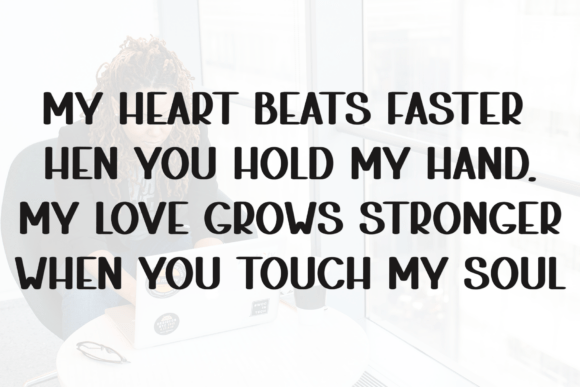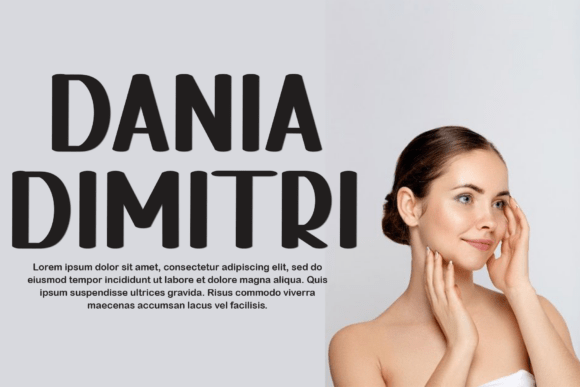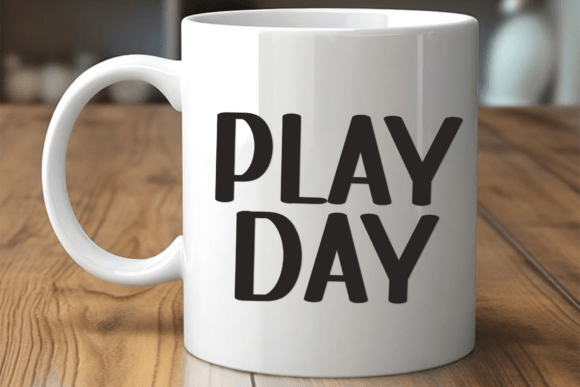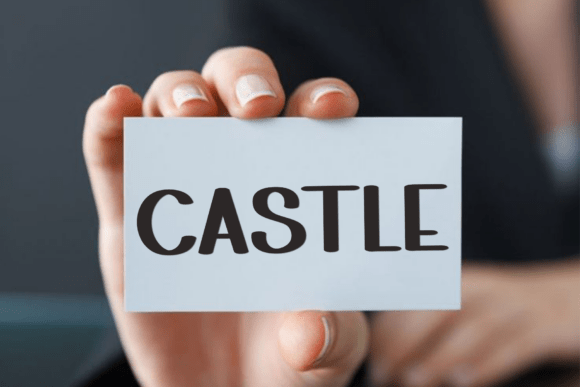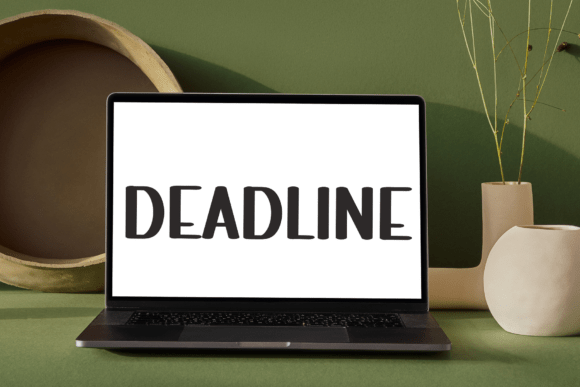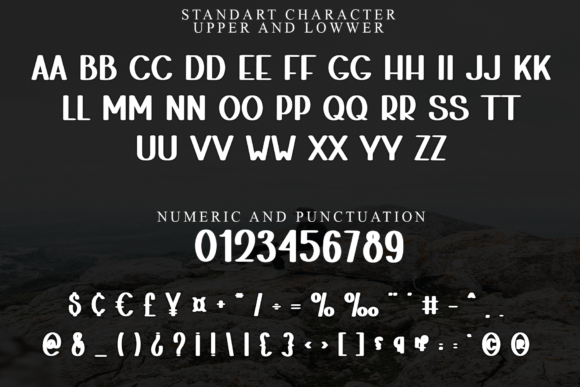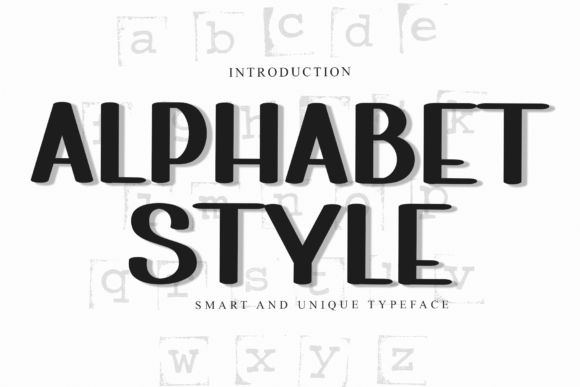
Introducing Alphabet Style Font: A Perfect Blend of Boldness and Friendliness
In the world of typography, finding the perfect balance between boldness and friendliness can be a daunting task. However, Alphabet Style Font has successfully achieved this balance, making it an ideal choice for designers and crafters looking for a versatile typeface. This font features thick, blocky letterforms with rounded terminals and a distinct vertical emphasis, giving it a unique and captivating appearance.
Key Characteristics of Alphabet Style Font
Alphabet Style Font boasts several key characteristics that set it apart from other typefaces. Some of its notable features include:
- Bold, high-impact weight: The font’s bold weight makes it perfect for headlines, titles, and other display text.
- Soft, friendly character: The rounded terminals and subtle irregularities give the font a warm, approachable feel.
- Thick, blocky letterforms: The font’s geometric foundation provides a solid base for a wide range of design applications.
- Distinct vertical emphasis: The font’s vertical emphasis adds to its unique character and makes it stand out.
- Hand-finished edges: The subtle irregularities and hand-finished edges give the font a human touch, making it more relatable and engaging.
Versatility of Alphabet Style Font
One of the standout features of Alphabet Style Font is its versatility. This typeface can be used in a wide range of design applications, including:
- Modern branding: The font’s bold, yet friendly character makes it perfect for modern branding and logo design.
- Bold editorial headlines: The font’s high-impact weight and clear letterforms make it ideal for headlines and titles.
- Educational materials: The font’s clean and approachable design makes it suitable for educational materials, such as textbooks and workbooks.
- Playful product packaging: The font’s unique character and hand-finished edges make it a great choice for product packaging that requires a clean yet soulful visual presence.
Why Choose Alphabet Style Font?
With so many typefaces available, why choose Alphabet Style Font? Here are just a few reasons:
- Unique character: The font’s blend of boldness and friendliness makes it stand out from other typefaces.
- Versatility: The font’s versatility makes it suitable for a wide range of design applications.
- Legibility: The font’s clear letterforms and distinct vertical emphasis make it easy to read, even at smaller sizes.
- Aesthetic appeal: The font’s hand-finished edges and subtle irregularities give it a unique aesthetic appeal that sets it apart from other typefaces.
Tips for Using Alphabet Style Font
To get the most out of Alphabet Style Font, here are a few tips:
- Use it for headlines and titles: The font’s bold weight and clear letterforms make it perfect for headlines and titles.
- Experiment with different sizes: The font’s versatility makes it suitable for a wide range of sizes, from small body text to large display text.
- Pair it with other fonts: The font’s unique character makes it a great choice for pairing with other fonts to create a unique visual identity.
Alphabet Style Font is a versatile typeface that offers a perfect blend of boldness and friendliness. Its unique character, versatility, and legibility make it an ideal choice for designers and crafters looking for a typeface that can be used in a wide range of design applications. Whether you’re looking to create modern branding, bold editorial headlines, educational materials, or playful product packaging, Alphabet Style Font is a great choice.